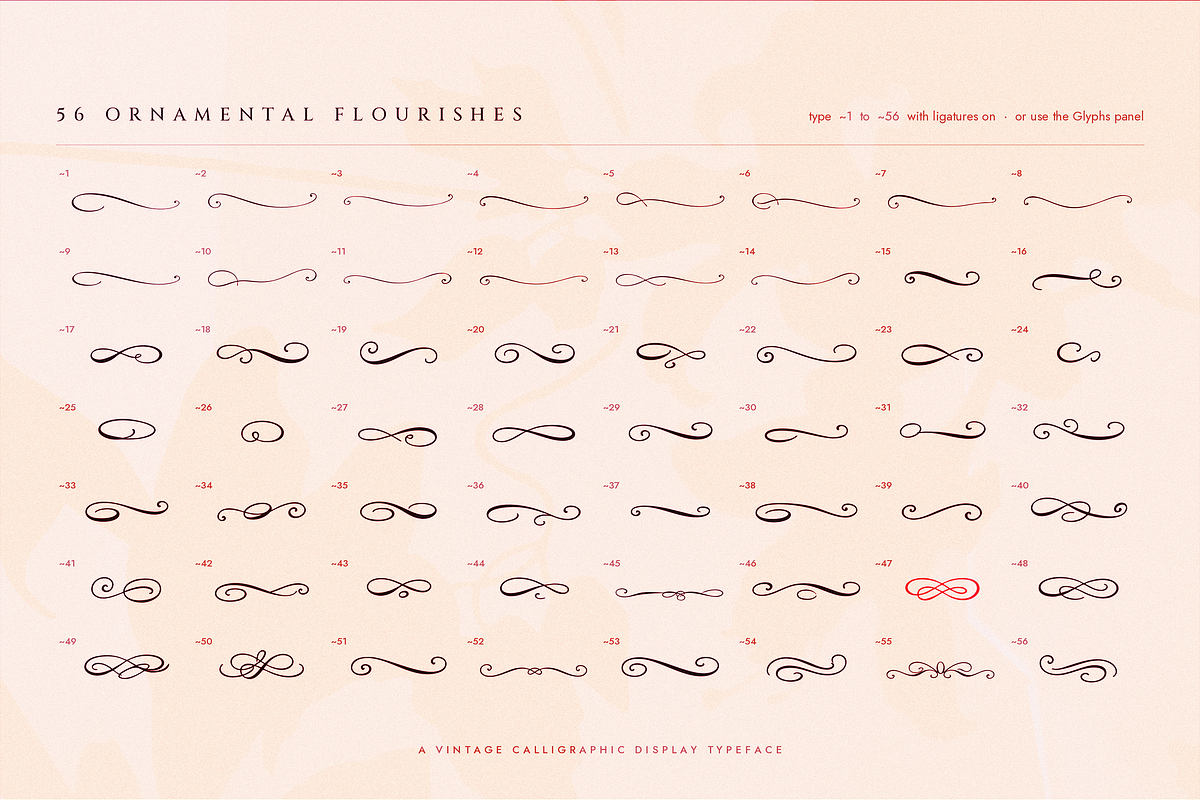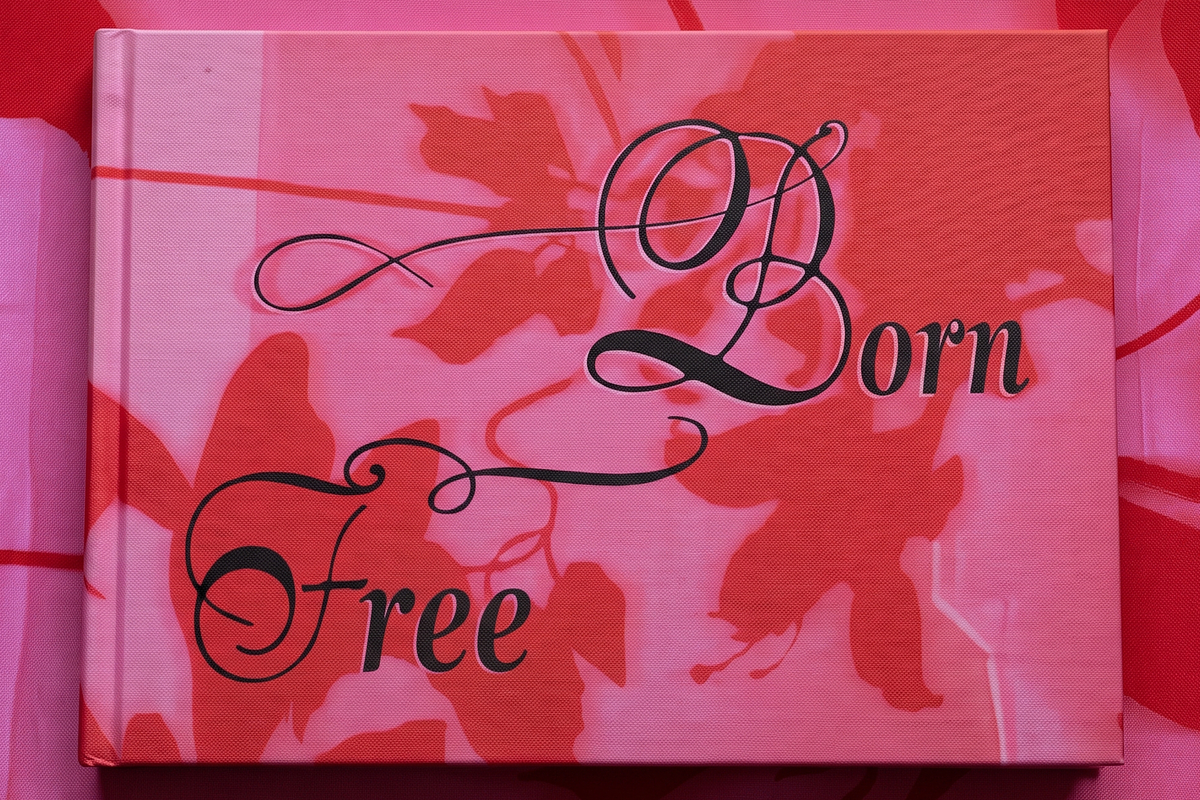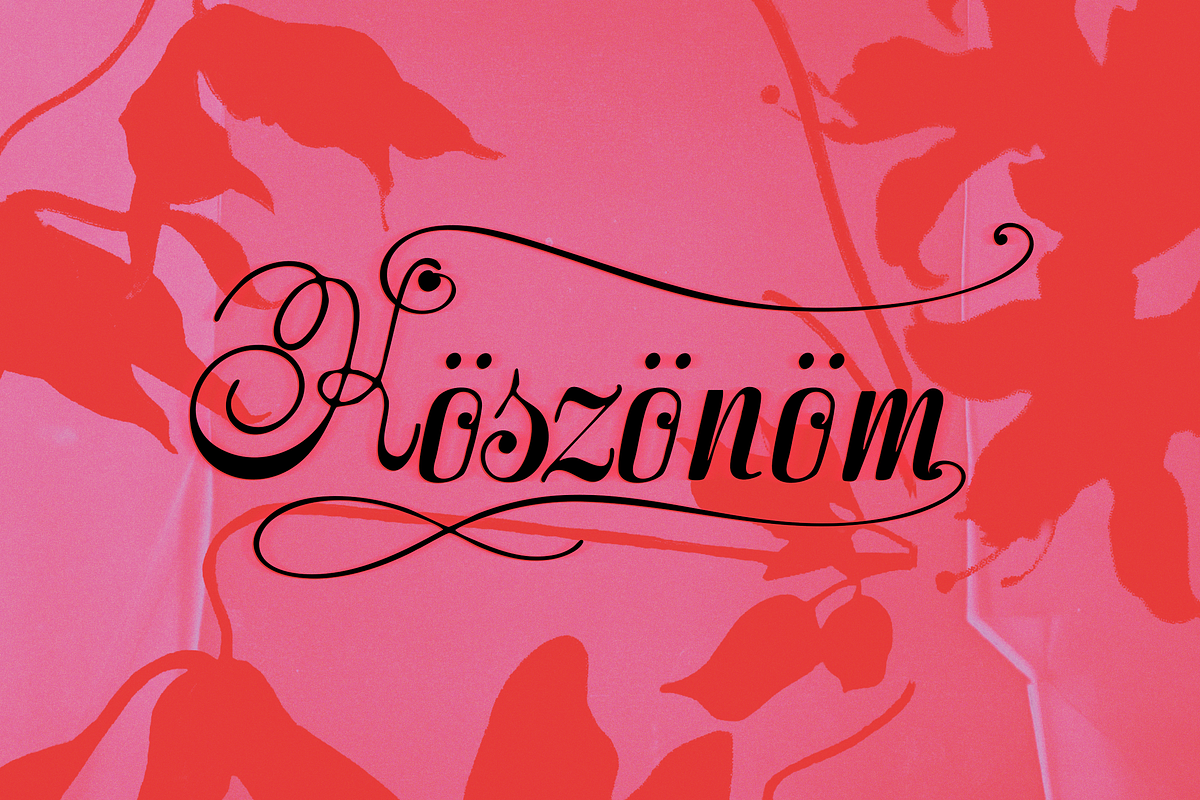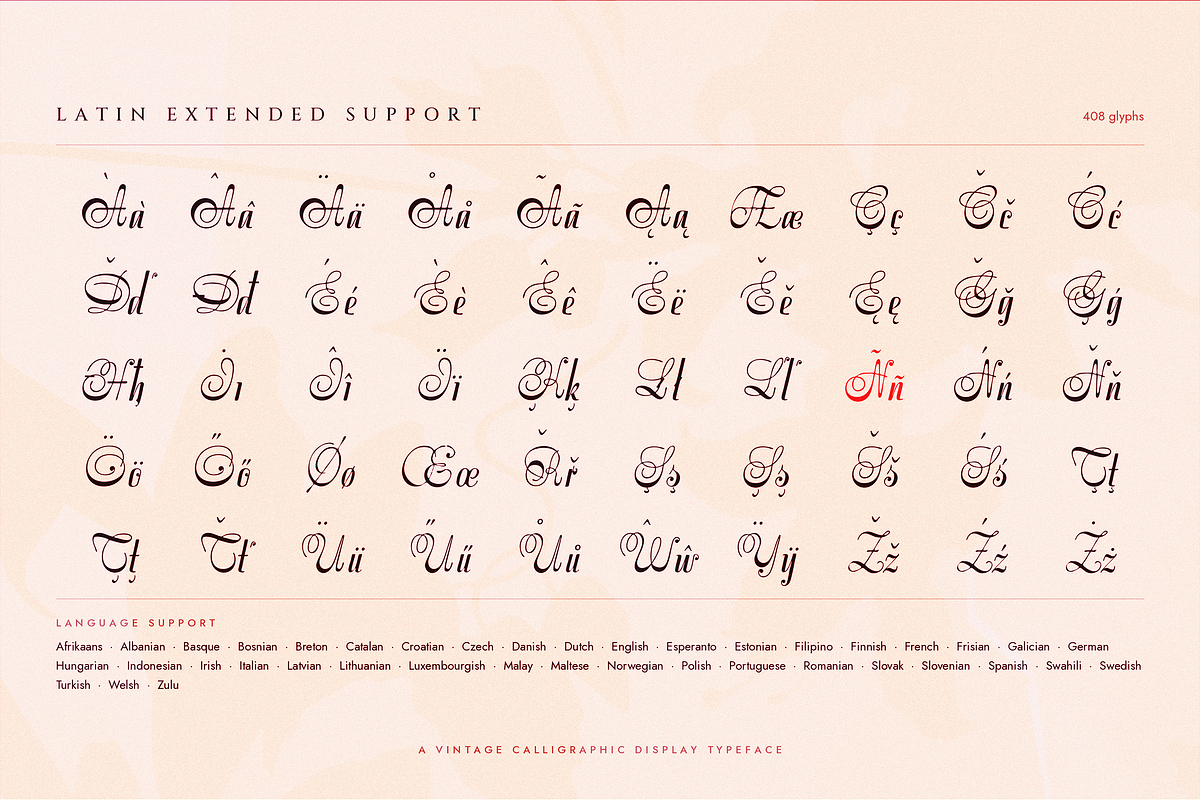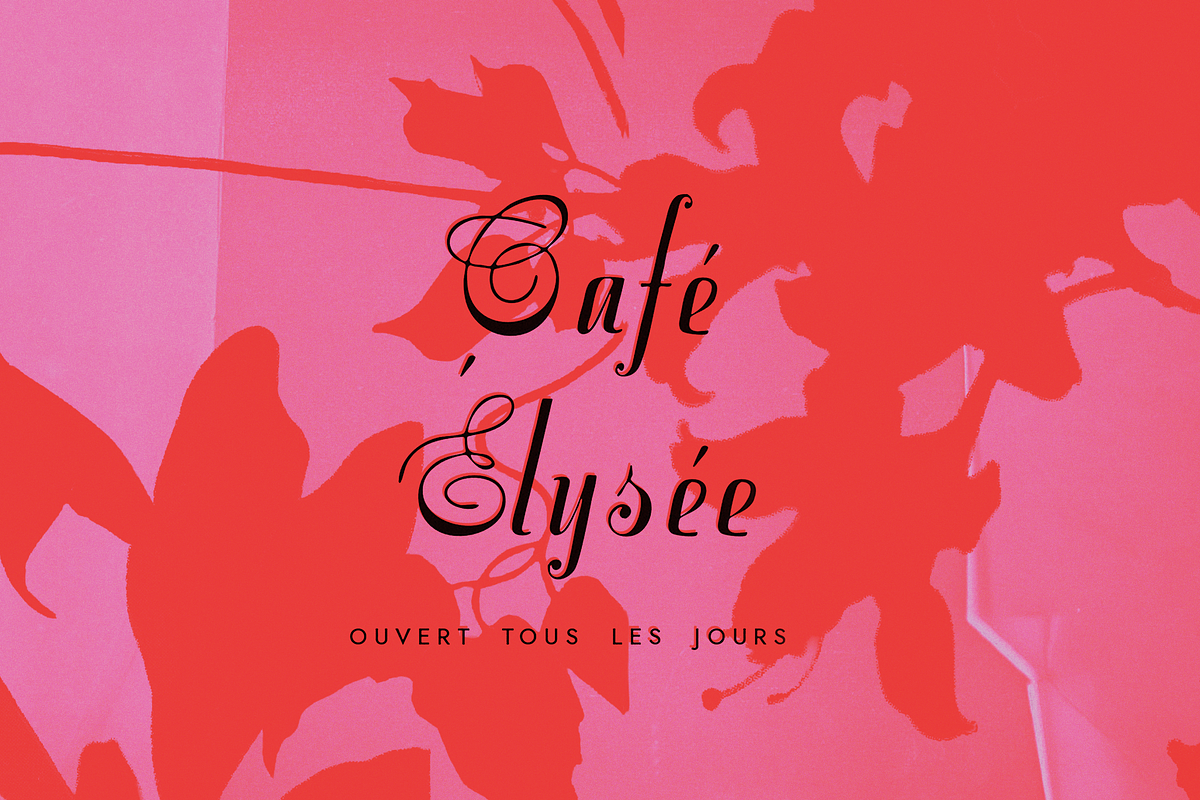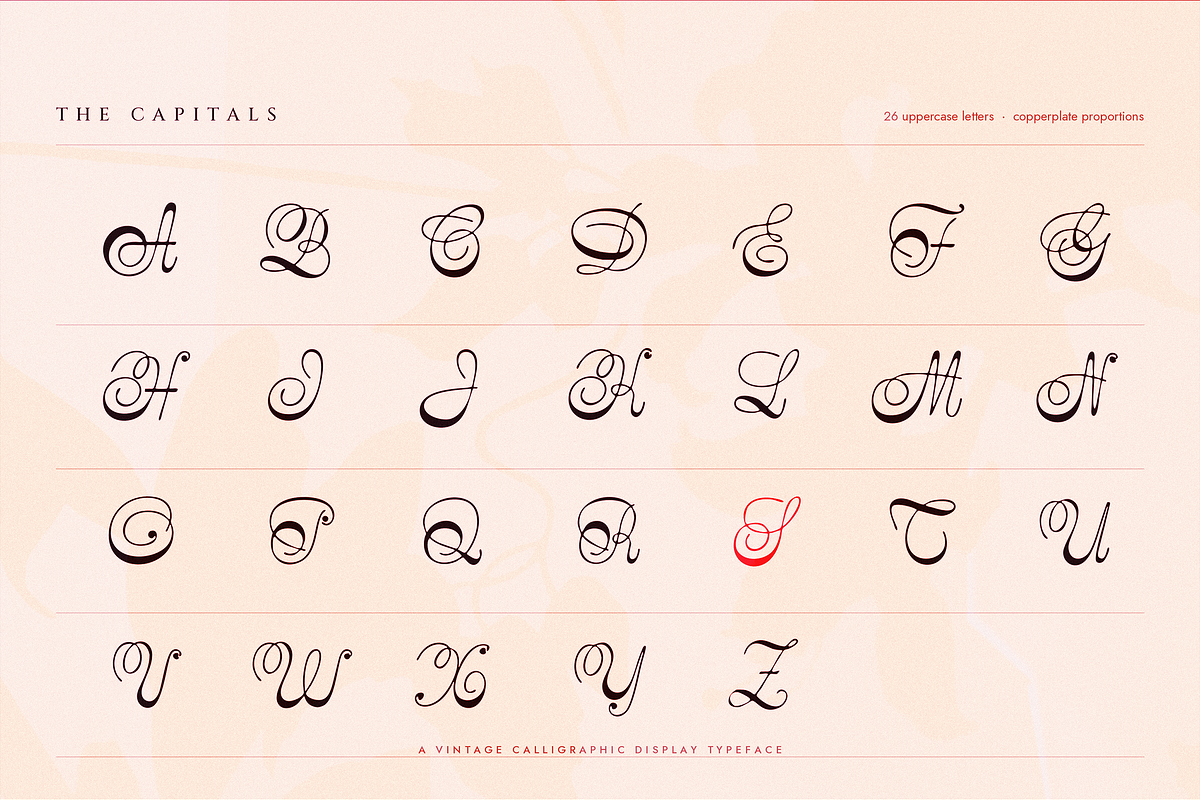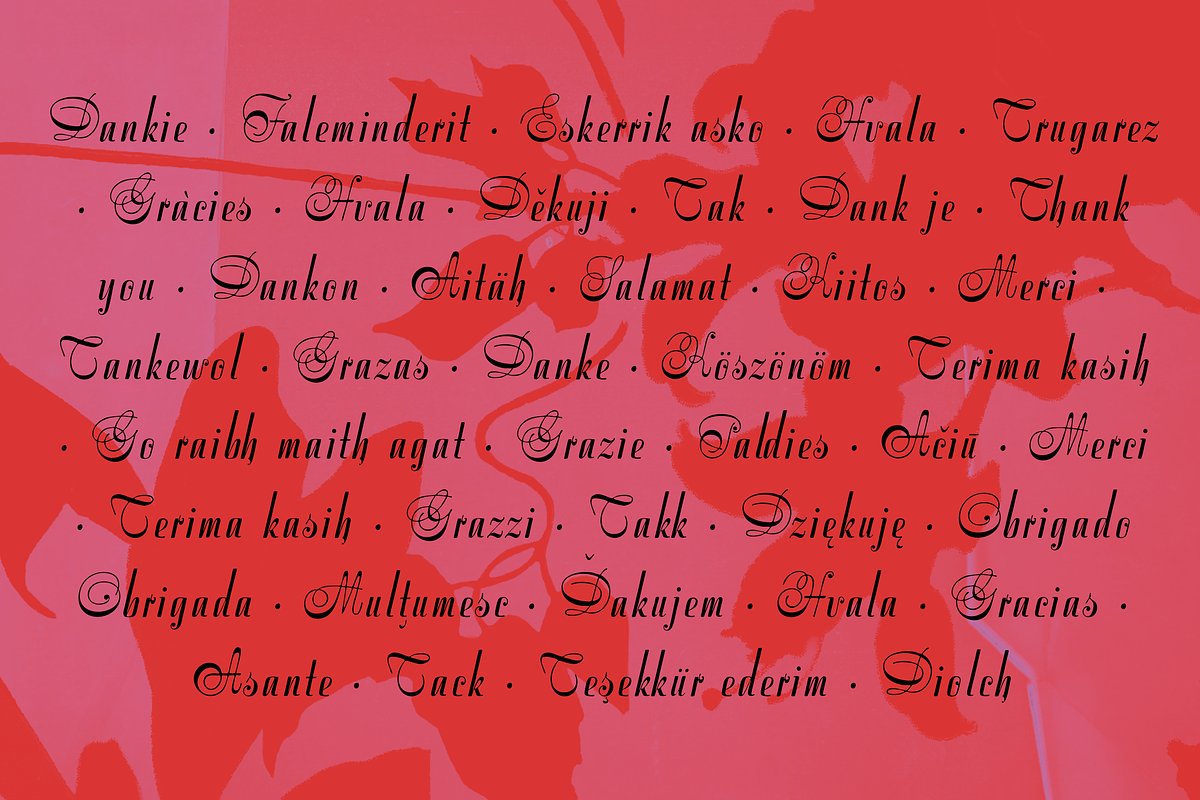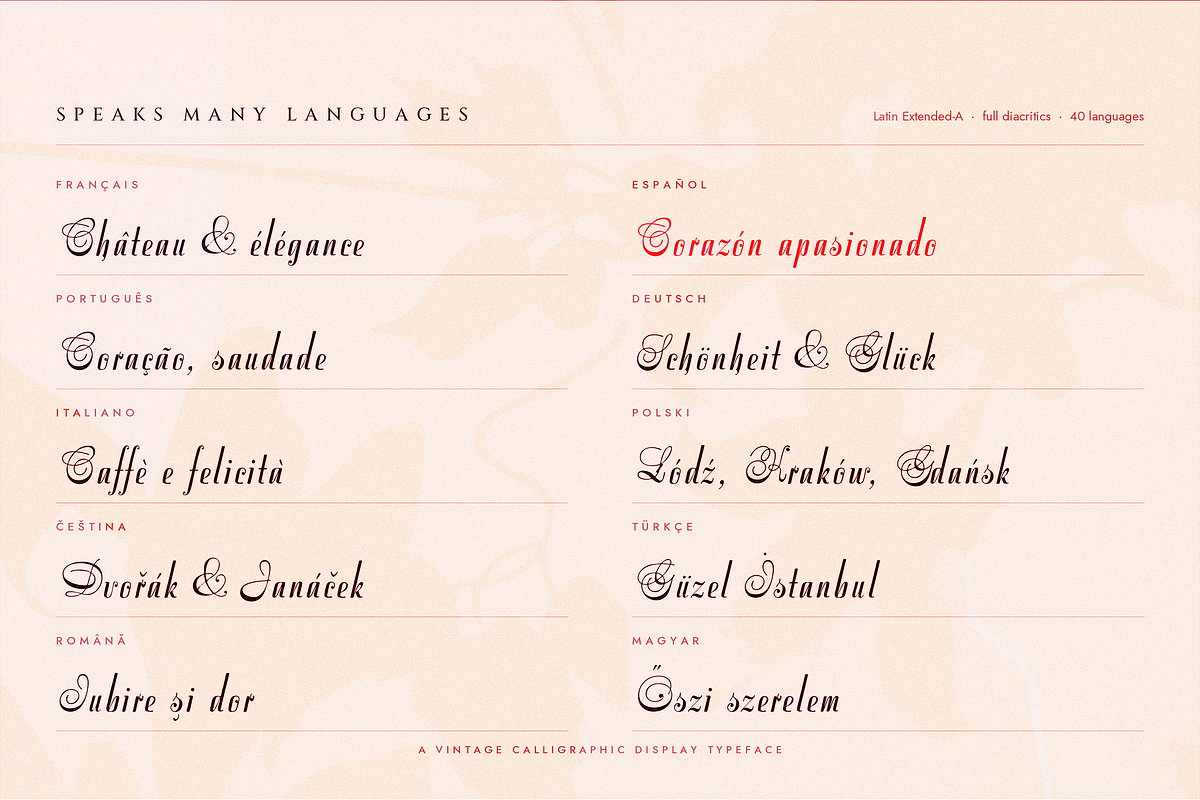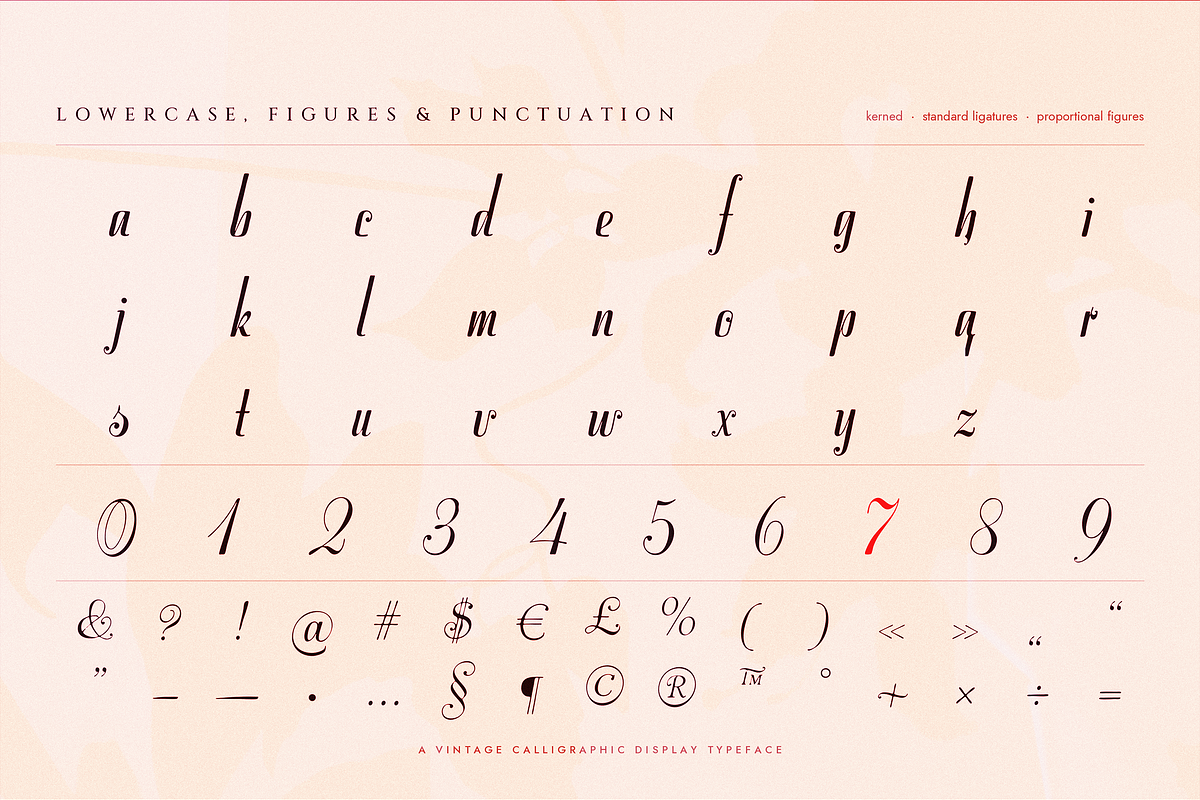
Stradivelle - Script Font
Inspired by a piece of German lettering from 1938, Stradivelle began as a restoration project and slowly became something much bigger. I wanted to keep as much of the original character as possible the unusual decorative capitals, fine hairlines, heavier downstrokes, and all of those beautiful little details that give old lettering so much personality.
Instead of making it feel overly polished or modern, I tried to preserve the elegance and slightly imperfect character of the original lettering. The capitals are very ornamental and expressive, while the lowercase letters are slimmer and more delicate, creating a beautiful contrast when used for titles, names, and display typography.
I also spent a lot of time expanding the original character set. Stradivelle now includes Extended Latin characters and full diacritics, with support for 40 languages:
Afrikaans, Albanian, Basque, Bosnian, Breton, Catalan, Croatian, Czech, Danish, Dutch, English, Esperanto, Estonian, Filipino, Finnish, French, Frisian, Galician, German, Hungarian, Indonesian, Irish, Italian, Latvian, Lithuanian, Luxembourgish, Malay, Maltese, Norwegian, Polish, Portuguese, Romanian, Slovak, Slovenian, Spanish, Swahili, Swedish, Turkish, Welsh and Zulu.
Every accented and extended character was drawn to feel like it naturally belongs to the original font rather than simply being added afterwards.
The font also comes with 56 ornamental flourishes, ranging from simple sweeping lines to loops, swashes, and more decorative ornaments. I created these so you can play with the font and build more elaborate compositions around words, titles, and logos.
Stradivelle includes uppercase and lowercase letters, numbers, punctuation, symbols, Extended Latin characters, diacritics, and 56 ornamental flourishes.
I especially love using Stradivelle for branding, perfume and cosmetic packaging, wedding stationery, editorial design, book covers, fashion projects, logos, invitations, posters, and anything that needs an elegant vintage feeling.